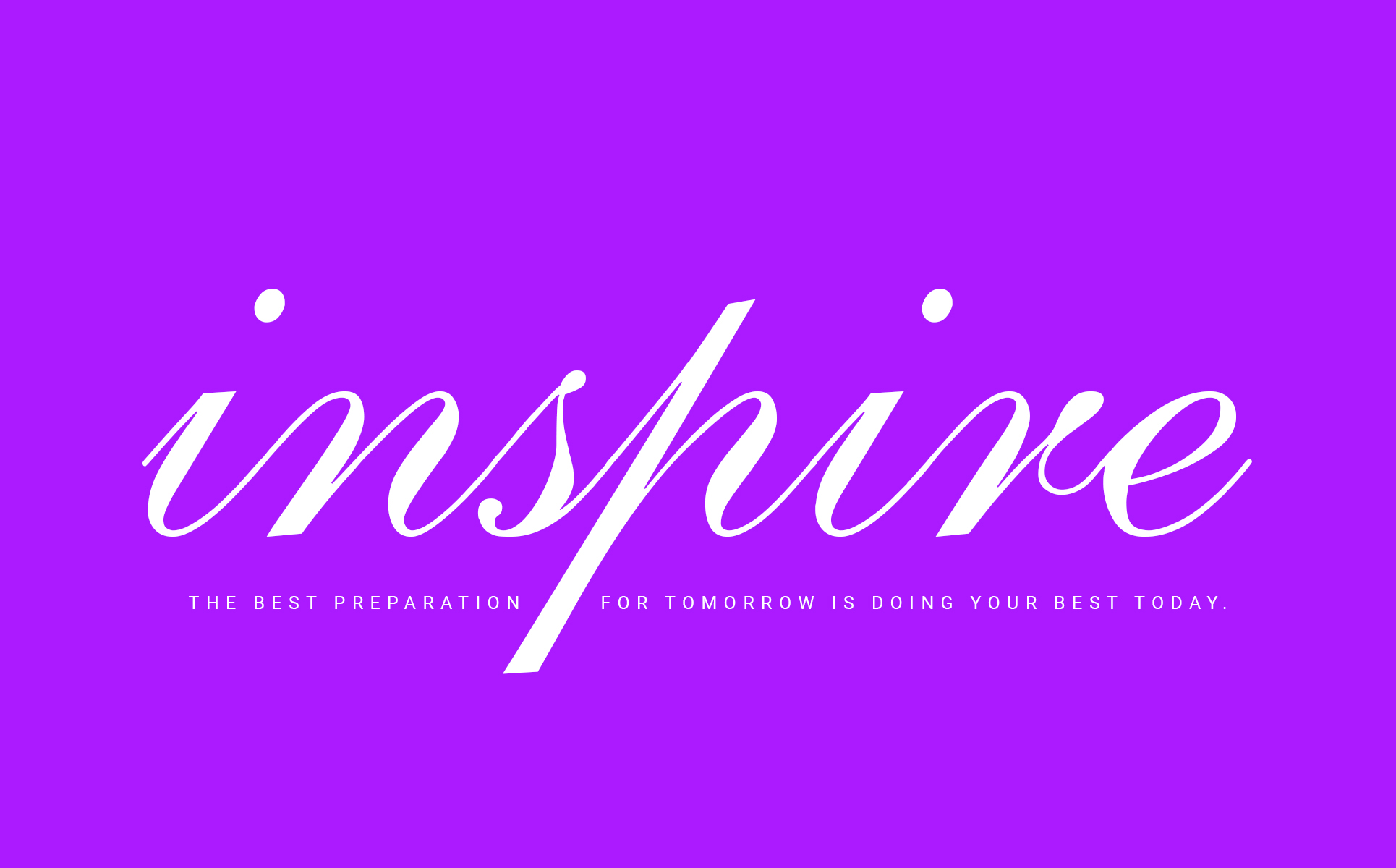
Night Miracles Font
This font is an embodiment of this idea. This is perfect for BRANDING. Maybe nothing else, but for BRANDING. You won't get cute, whimsical, funny logos with this font. When creating the font, we should take into consideration that each letter should be able to be connected with other letters.